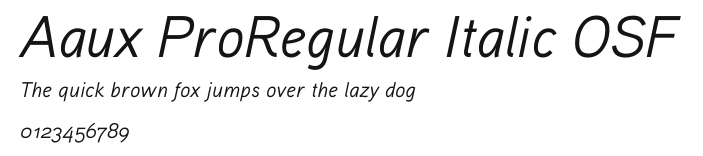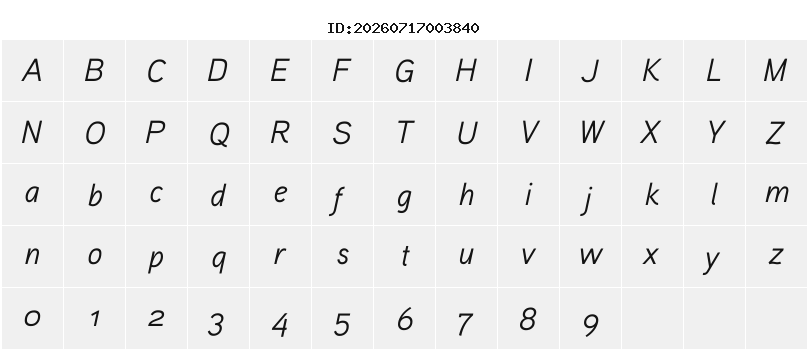
Aaux ProRegular Italic OSF Preview
• Font Name: Aaux ProRegular Italic OSF
About Aaux ProRegular Italic OSF.ttf
Aaux ProRegular Italic OSF.ttf is a modern, elegant sans-serif font designed for ultimate readability and visual harmony. Perfect for branding, headlines, web design, and print materials.